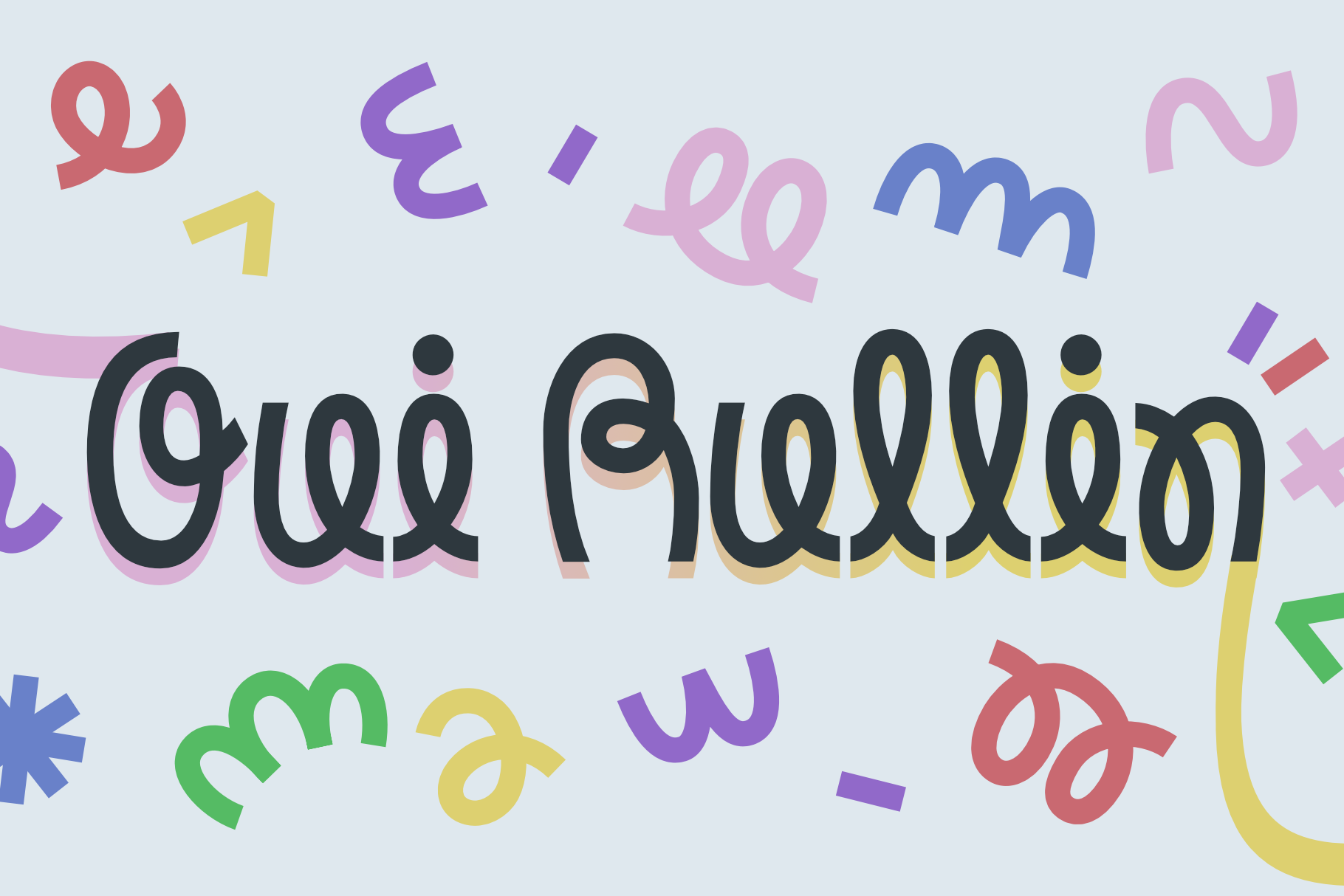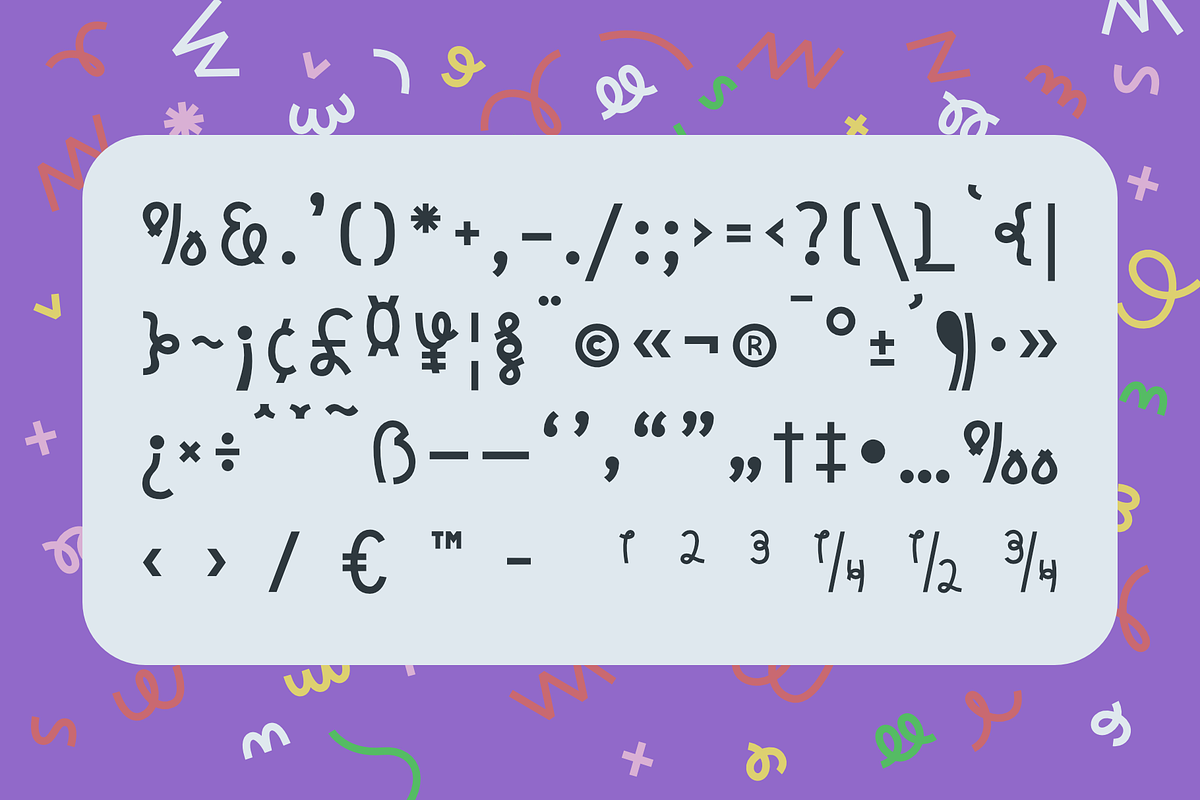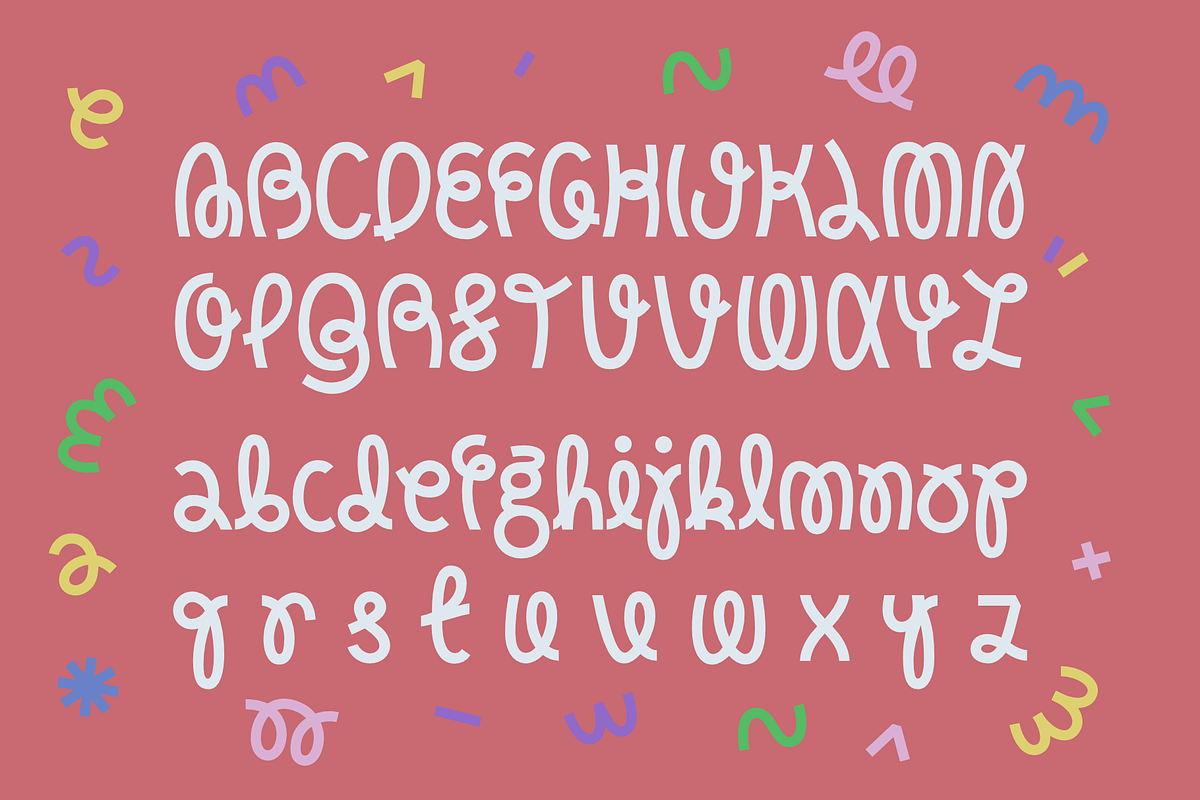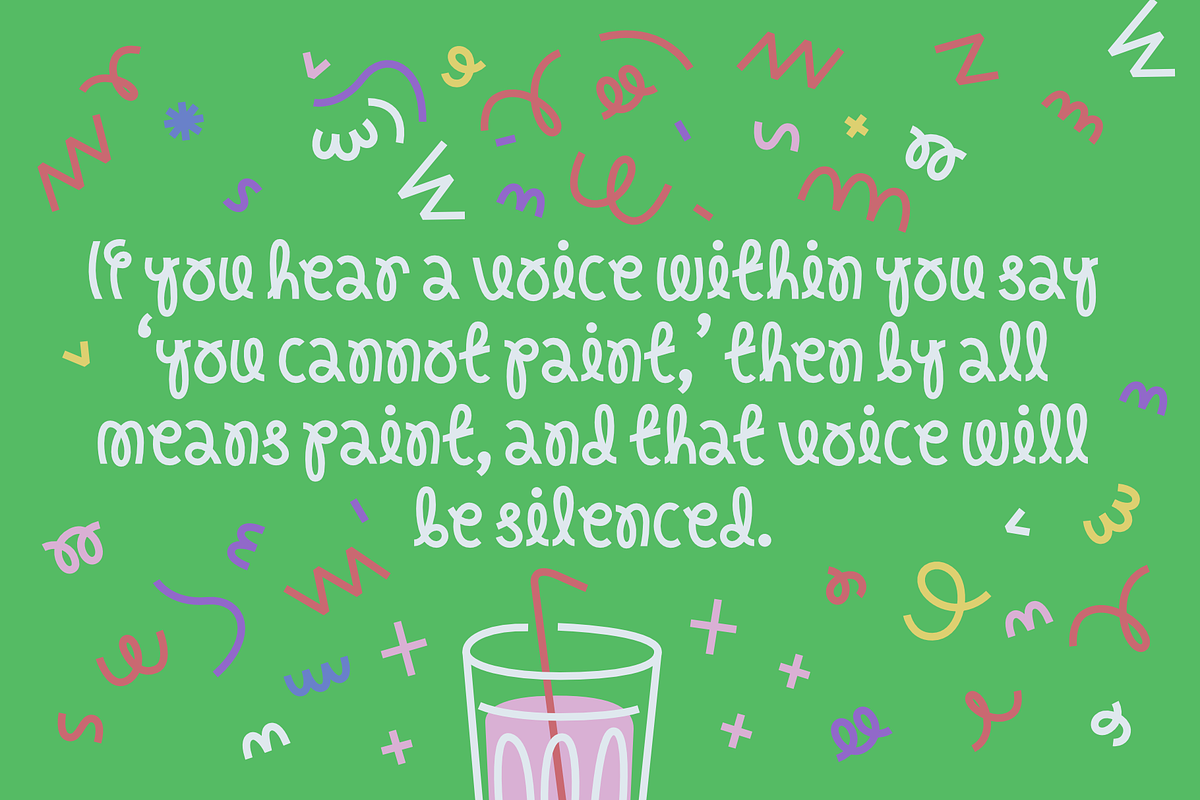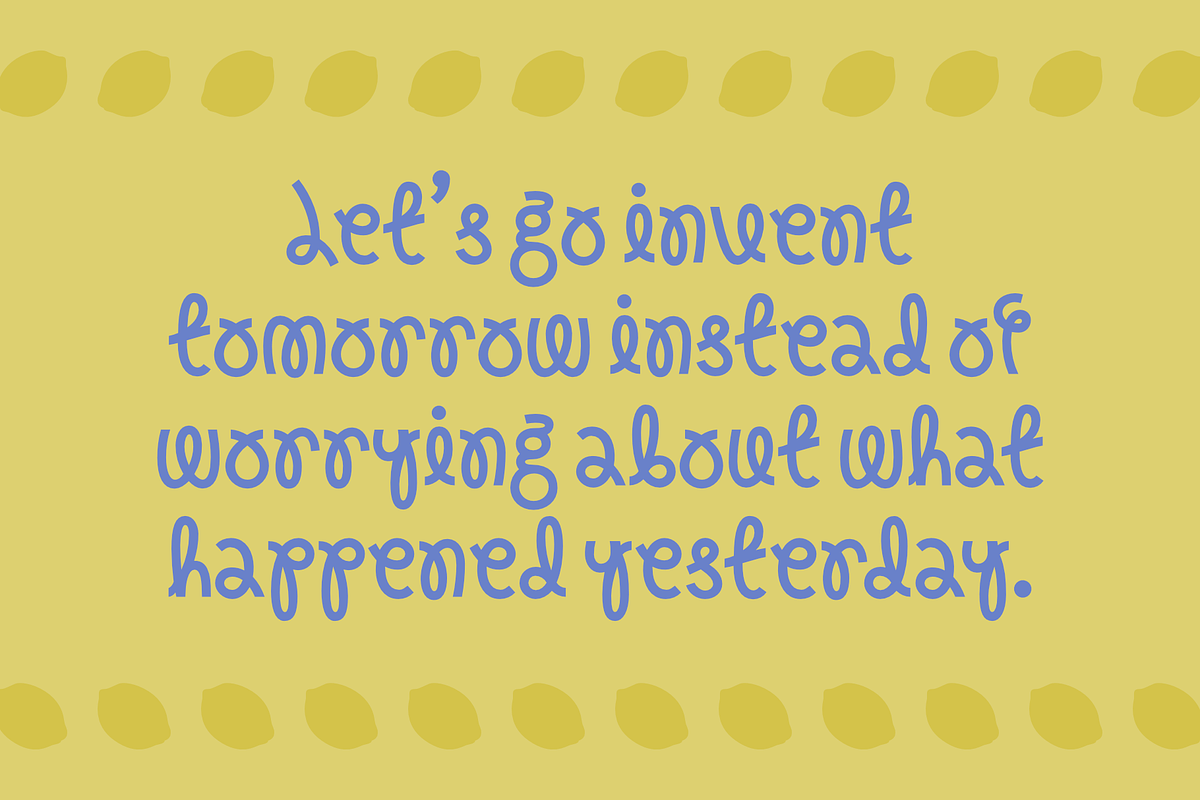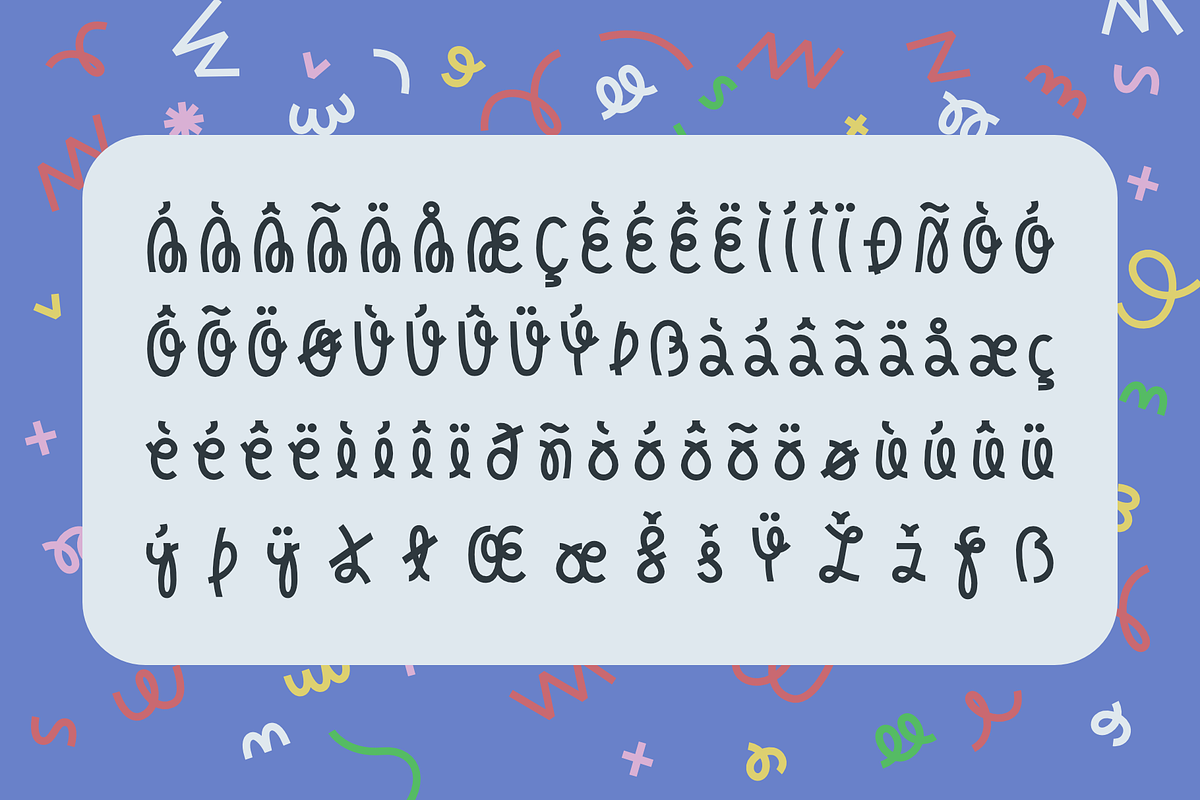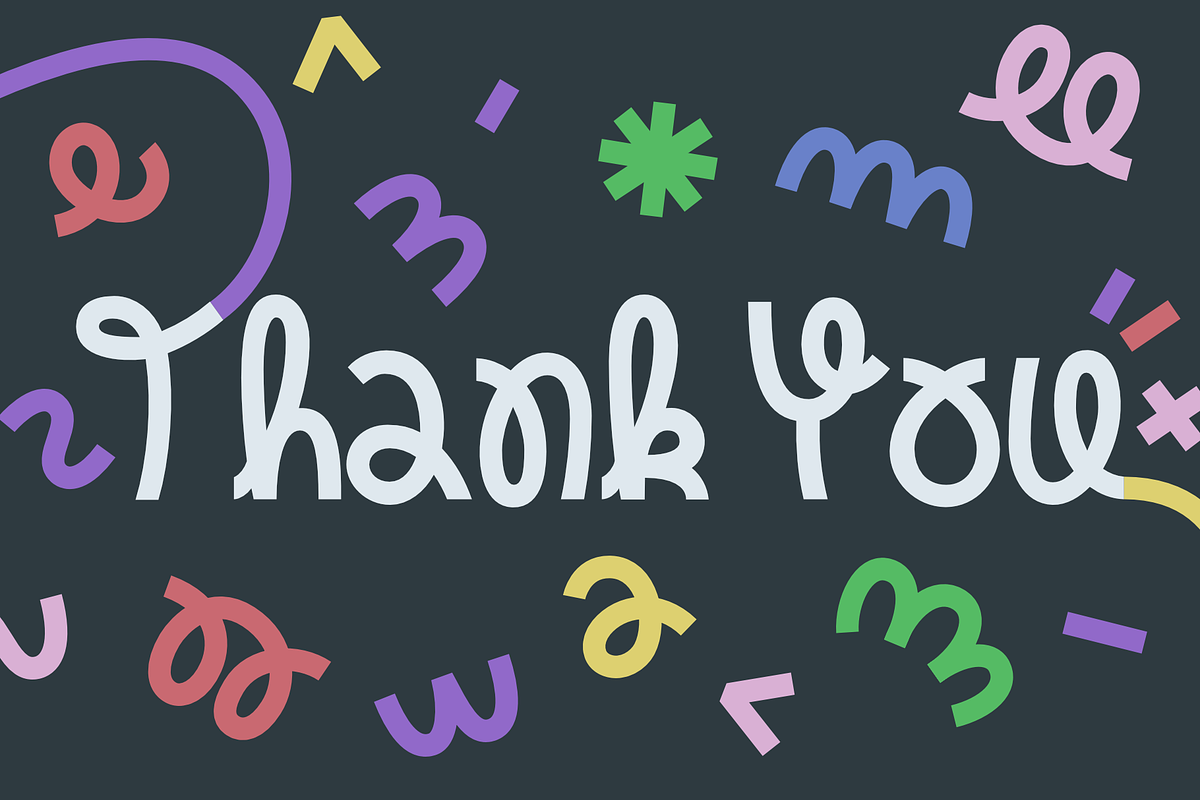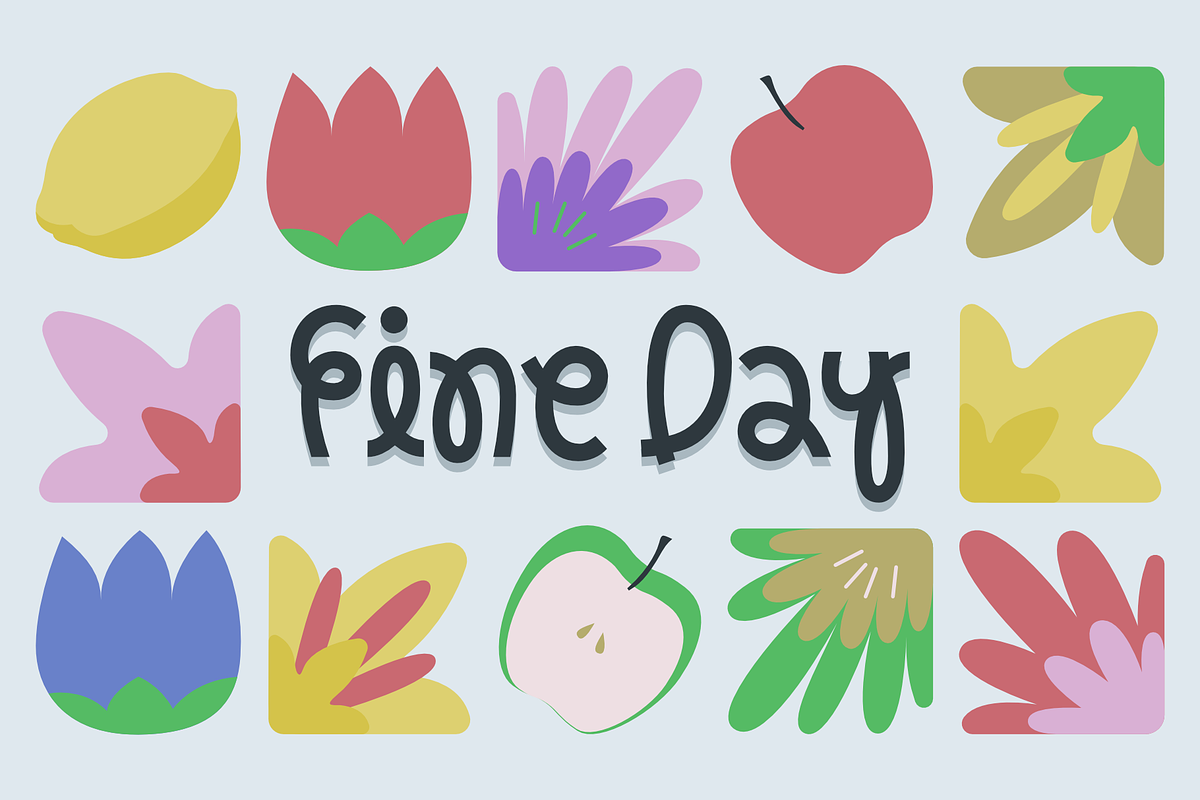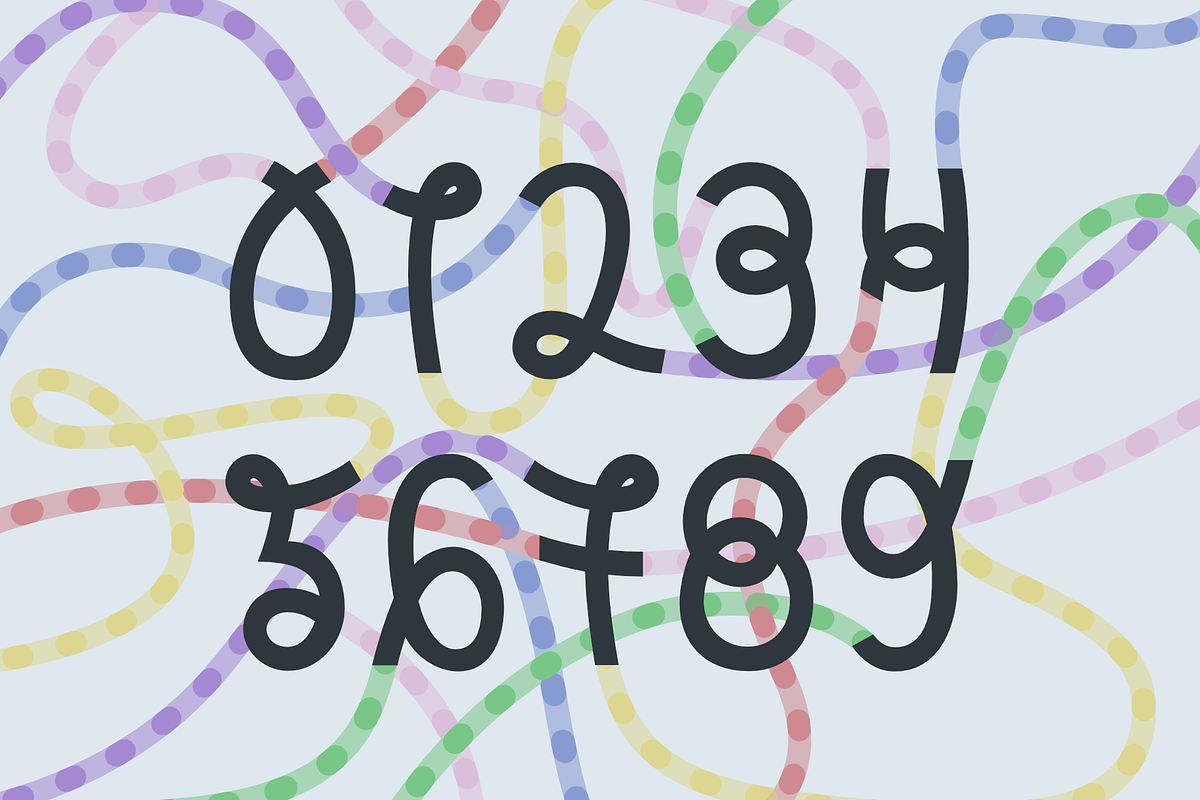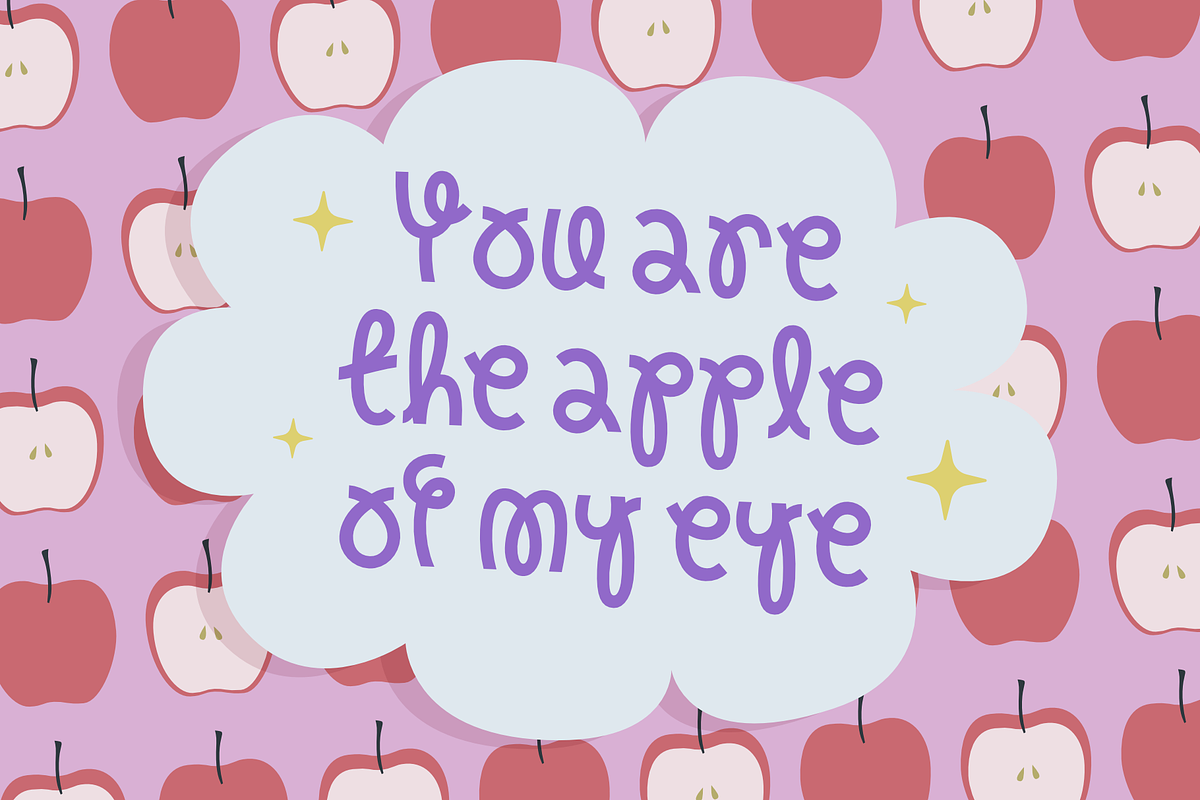
Oui Rullin a quirky display font
Oui Rullin is a quirky, display font full of joy and spontaneity. With its rounded strokes, whimsical curves, and playful rhythm, it brings an instant sense of warmth and personality to any design. Each letter feels alive — slightly imperfect in all the right ways — giving your text a friendly, handmade charm that’s perfect for spreading positive energy. Oui Rullin captures the essence of creativity and childlike wonder, making it an irresistible choice for fun and expressive projects.
From greeting cards and children’s books to packaging, posters, and social media graphics, Oui Rullin adds a unique spark wherever it’s used. Its balance of casual flow and artistic flair makes it both approachable and distinctive. Whether you’re designing for a cheerful brand or crafting a heartfelt message, Oui Rullin turns every word into a smile.